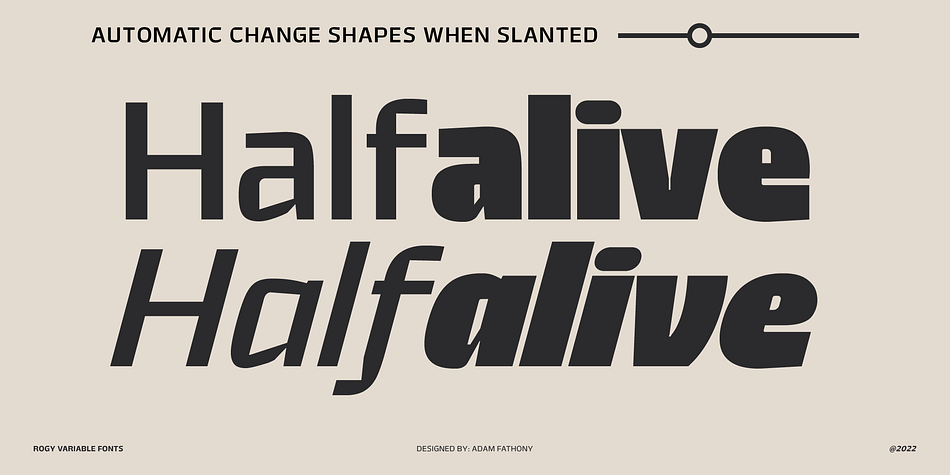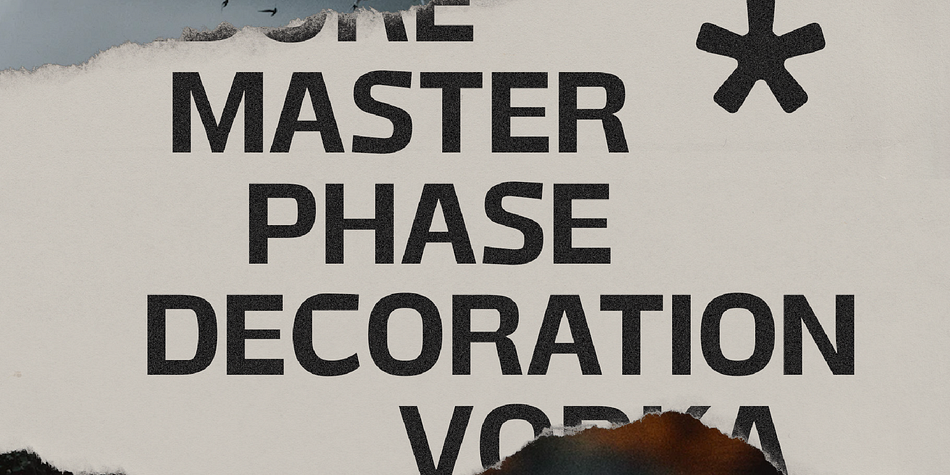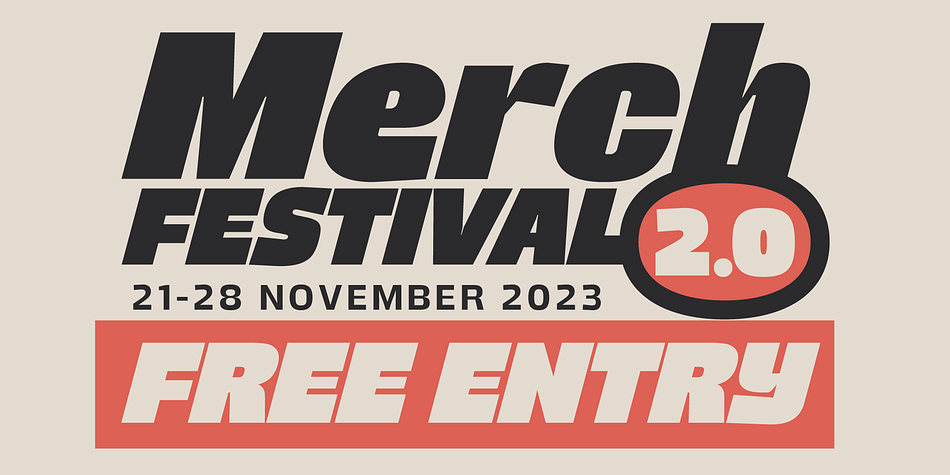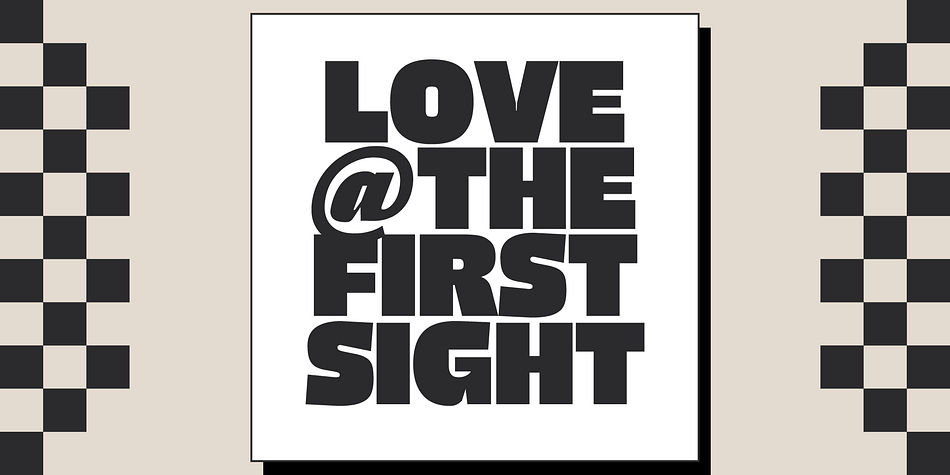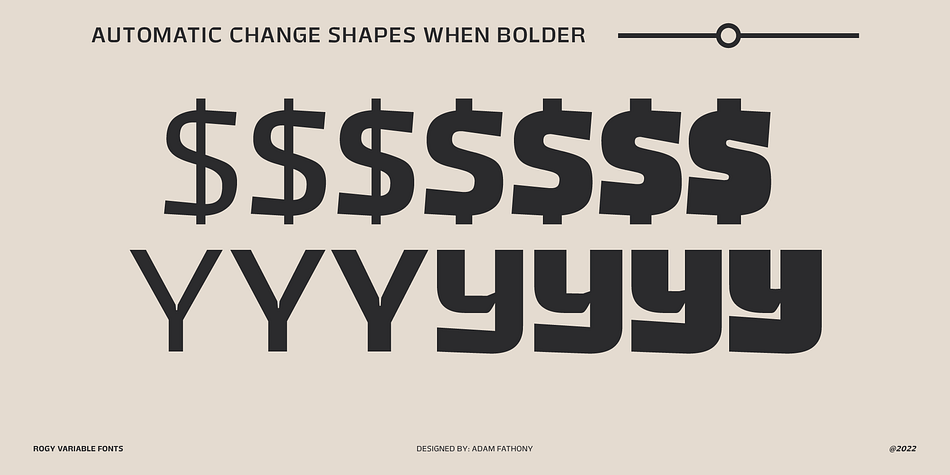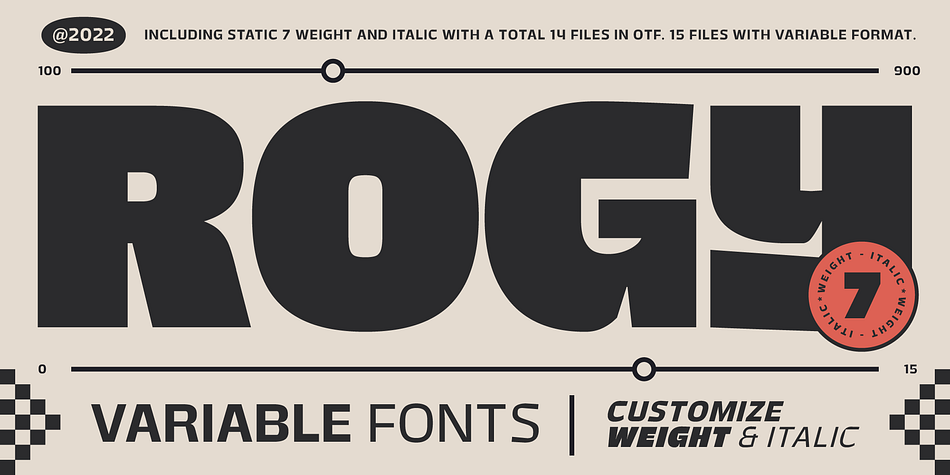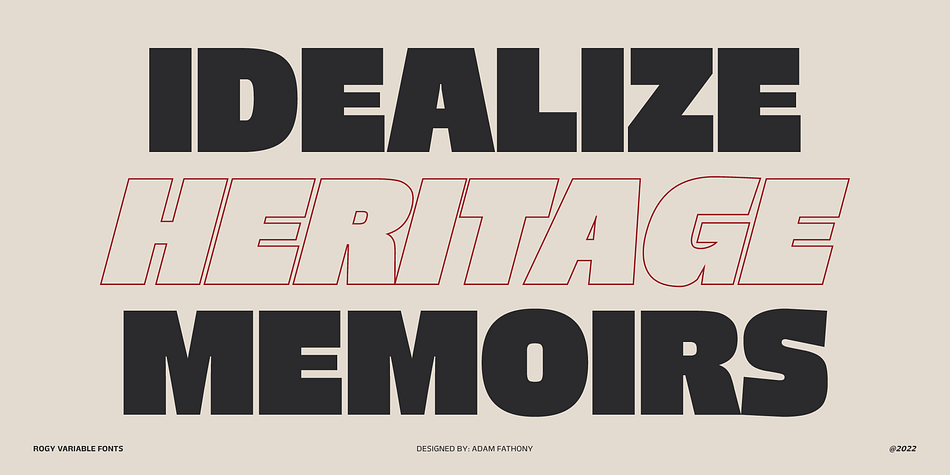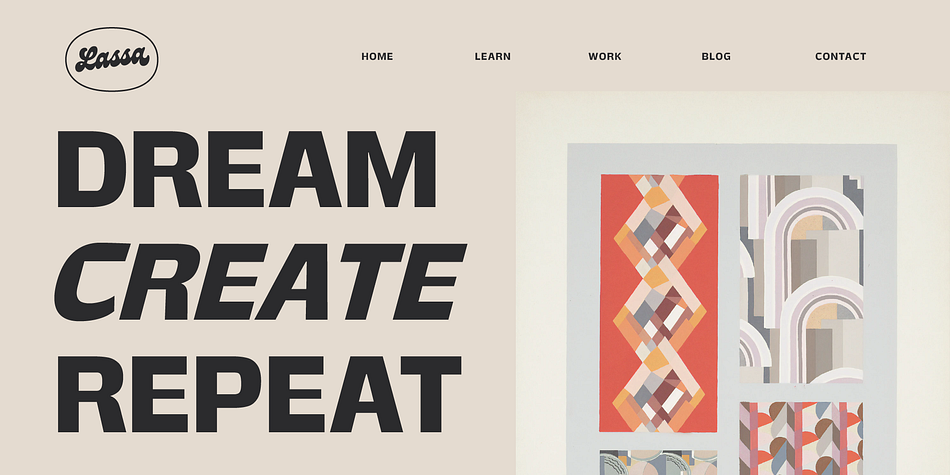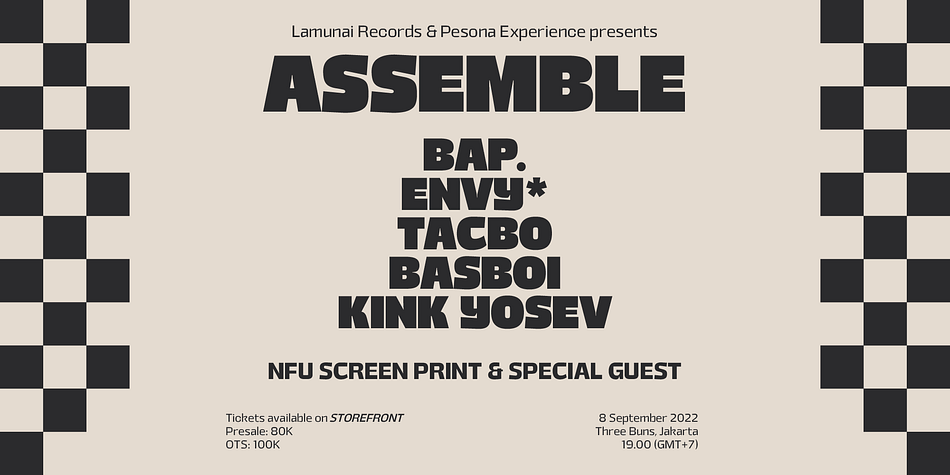
Rogy
Rogy is a sans serif font family. This typeface has fifteen styles and was published by AF Studio.
Rogy, A Display Typefaces with Variable Weight and Italic.
Rogy is a modern variable font. Basically this is a Sans with rigidity and squared look yet very legible with various width and italic that you can explore, combine, create and help you designing something. The Bolder the Stronger. it has define Rogy, it’s Bold, Strong and the italic version of this fonts are very good for Sports design.